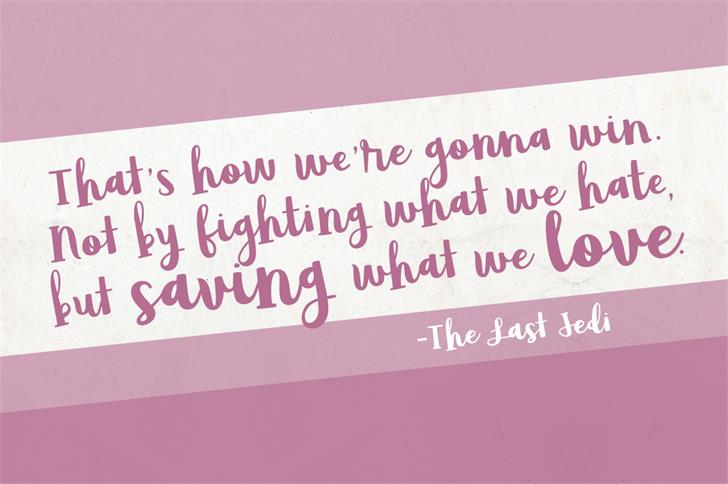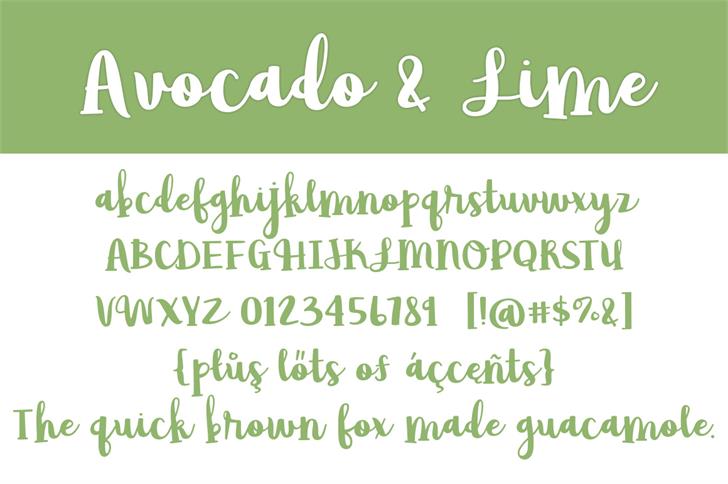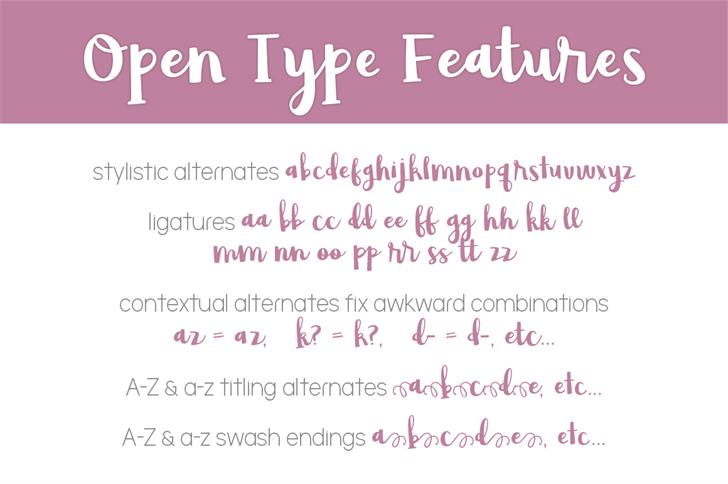
Avocado & Lime Script Font
Good day with a bold and quixotic serif script font. Introducing Avocado & Lime. It is designed and shared by Brittney Murphy Design. Avocado & Lime includes open type ligatures stylistic & contextual alternates, and swashes. It’s also super cute for print projects, logos, branding, or anything else you want to use it for!